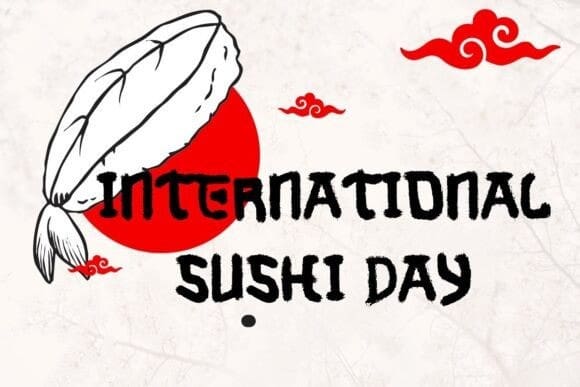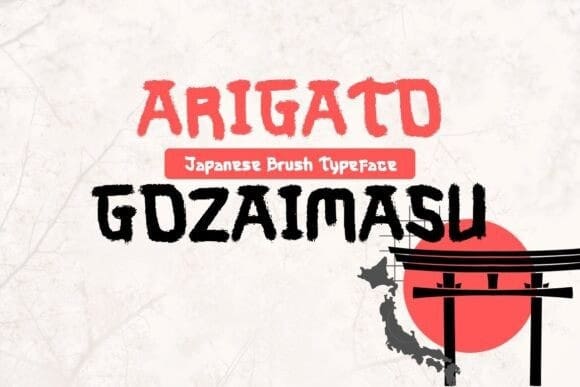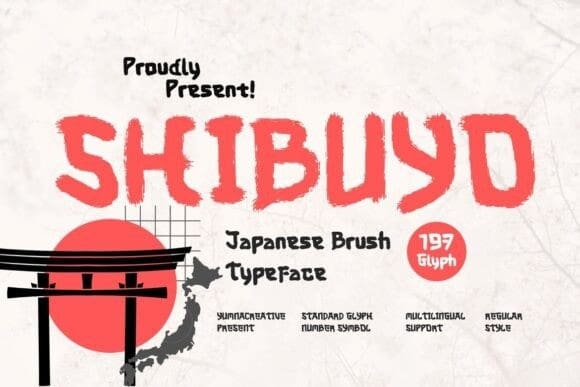
Shibuyo Japanese Brush Font
Shibuyo Japanese Brush Font is a traditional Japanese brush used for calligraphy and painting. It has soft, flexible bristles that allow for smooth, expressive strokes. Often made from animal hair, it is used to create beautiful, flowing characters or artwork with ink. Shibuyo brushes come in various sizes, each designed for different types of writing or painting.